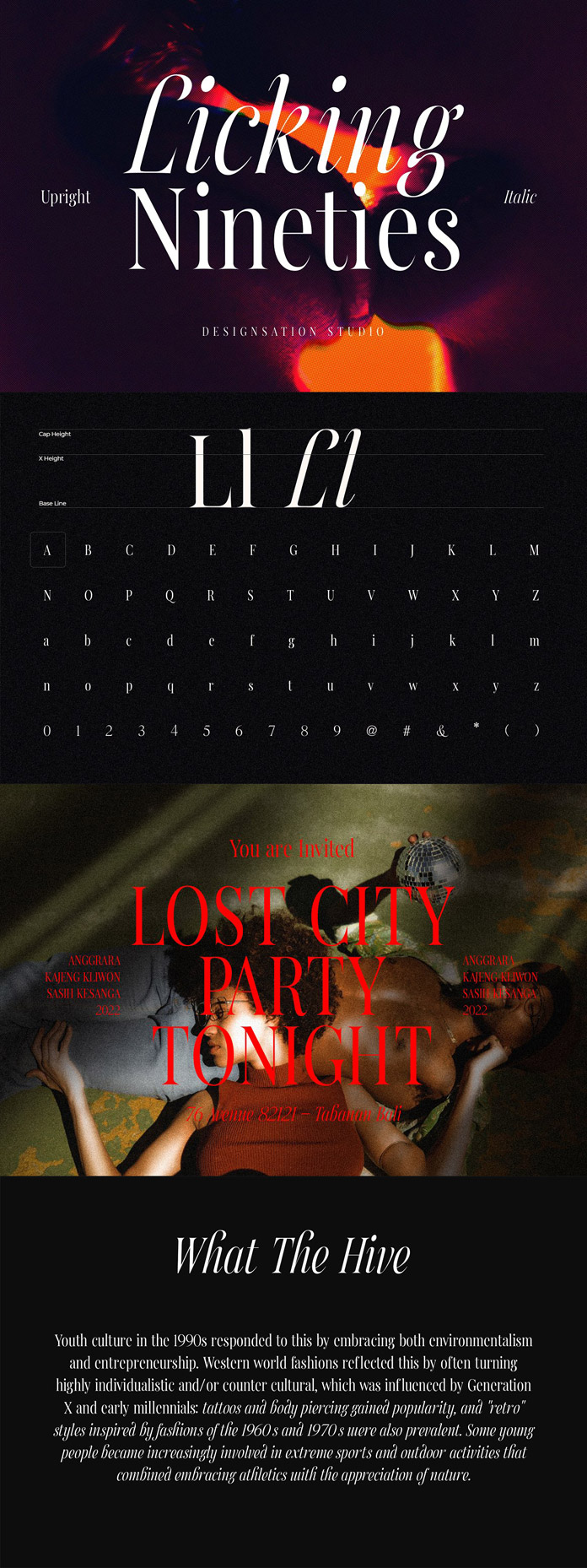
If you are looking for a typeface with a nostalgic flavor, the Licking Nineties serif font might be a great choice.
The popularity of serif fonts is making a comeback in recent years. More and more graphic designers use these types of fonts in their work. While there are many different serif fonts to choose from, some of the most popular ones seem to be inspired by designs from the 1990s. As the name suggests, the Licking Nineties serif font is a particularly good example.
Created by Designsation, the Licking Nineties serif font has two styles, Upright and Italic, each with its own shape. The tailed italic typeface is in high contrast with the firm upright style, giving your design a sleek look. Equipped with OpenType feature, the font supports multiple Latin-based languages.